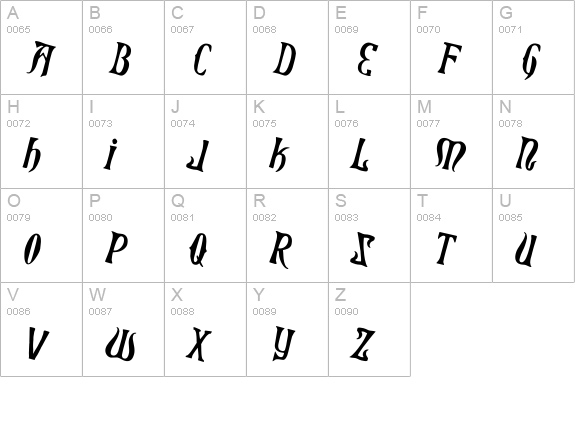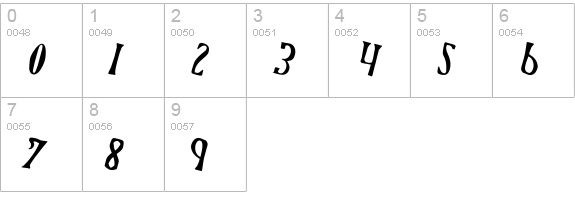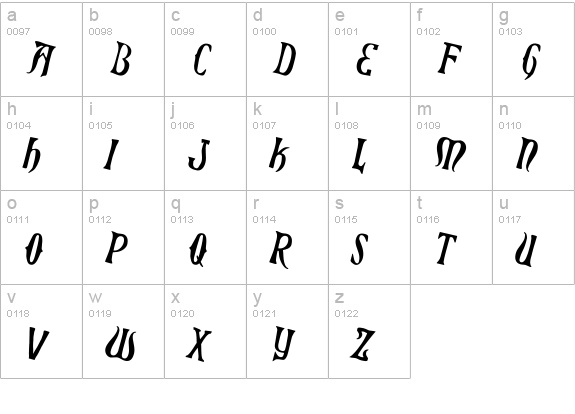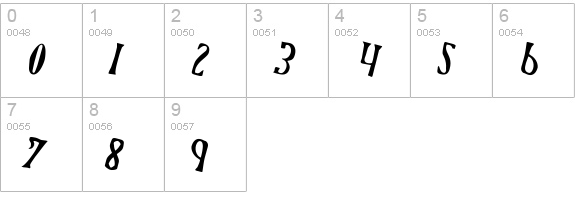
The Xiphos Counter-Rotated font is a stunning display typeface that exudes a sense of modernity and sophistication. Its unique design features intricate letterforms with a captivating counter-rotated twist, adding a touch of artistic flair to any project. This font is perfect for creating eye-catching headlines, logos, and branding materials that demand attention. What makes Xiphos Counter-Rotated even more appealing is that it is available for free download at FontsMarket.com. This means that you can easily access this exceptional font and incorporate it into your designs without any cost. Don't miss out on the opportunity to elevate your creative projects with the distinctive style of Xiphos Counter-Rotated font. Download it today and let your creativity shine!